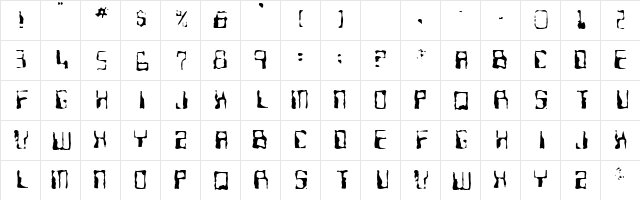
Ninteen 77 Regular Font Preview
Ninteen 77 Regular
Design Context for Ninteen 77 Typeface
Ninteen 77 is a composed and adaptable typeface that performs quietly and consistently across a wide range of design contexts.